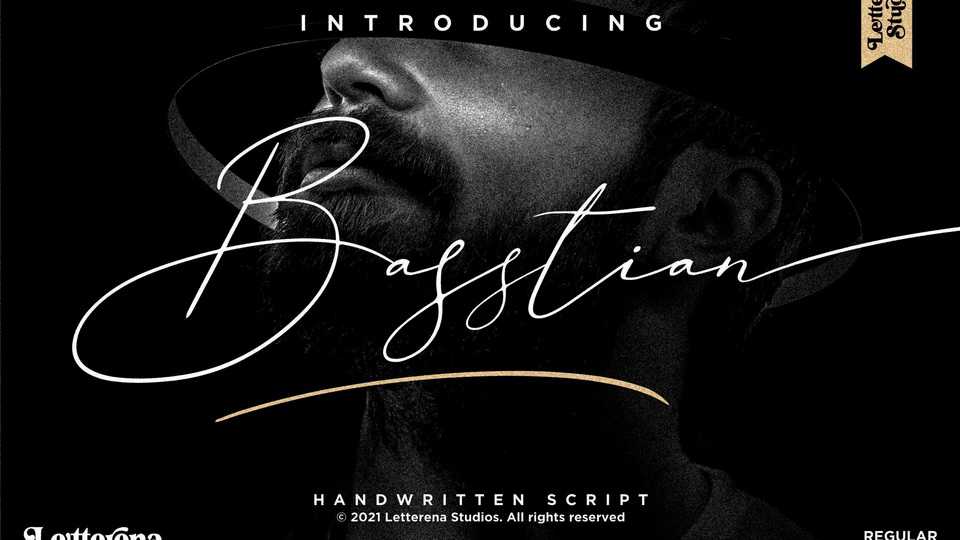
Basstian Script Font › Fontesk – Download Grátis
Download Basstian font, a signature script typeface with a very natural handwritten look. Basstian is suitable for logos, branding projects, homeware designs, quotes, posters, greeting cards, photography watermark, special events, and all your other luxury projects.